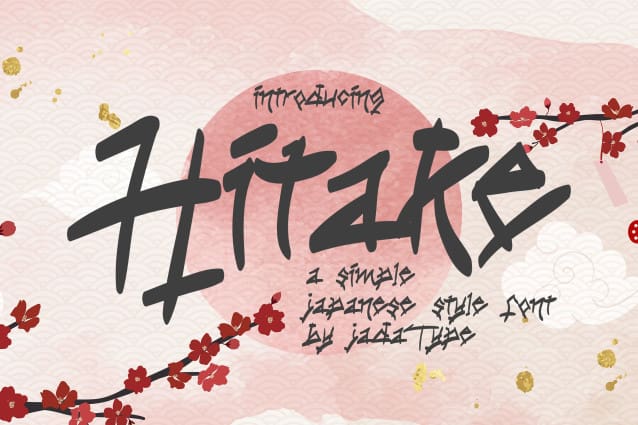
Hitake Display Font
Hitake Display Font is a display font that gives the impression of a stylish brush. It is suitable for supporting your graphic design, social media, clothing design, events, and so on.